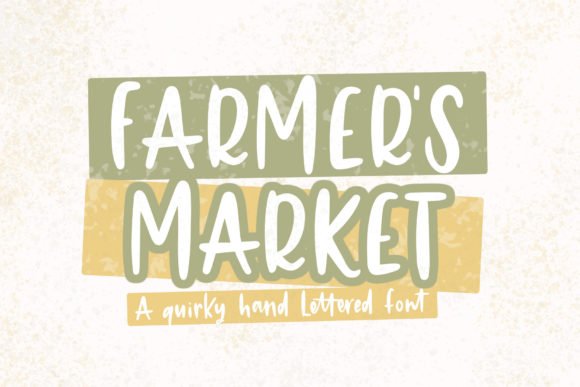
Getting Creative in the Fields of Typography
Have you ever strolled through a bustling farmer’s market, surrounded by vibrant colors and the sweet scent of fresh produce? For many creatives, these moments are the spark that ignites their imagination and inspires new projects. Whether you’re a graphic designer, artist, or simply someone who loves to craft, the sights and sounds of a farmer’s market can be a powerful catalyst for creativity.
One of the most charming elements of a farmer’s market is the handwritten signs and labels that adorn the stalls. These rustic, yet charming, typography styles are not only a feast for the eyes but also a valuable resource for designers. Enter the Farmer’s Market Font, a lovely handwritten typeface that captures the essence of these creative marketplaces. With its unique characters and friendly vibe, this font is the perfect addition to any design project.
Farmers Market Font Key Features
- Font Family: Farmers Market Font is a unique, hand-drawn font family designed to evoke the charm of a traditional farmers market.
- Unique Characteristics: Features a mix of rustic, vintage, and modern elements, making it suitable for designs ranging from rustic to elegant themes.
Farmer’s Market Font Review
At first glance, Farmer’s Market Font appears to be a charming, hand-drawn font perfect for creating a rustic and welcoming atmosphere. ✨ The varying line weights and subtle texture add a nice layer of depth and personality to the font, making it suitable for a wide range of applications, from branding to packaging.
- ✨ Highly expressive and unique, allowing for a distinct visual identity
- ✨ Wide range of styles and weights, offering flexibility in design
- ✨ Texture and imperfections give the font a hand-crafted feel
However, there are some limitations to consider. ⚠️ The font may not be ideal for body text, as the varying line weights can make it difficult to read at smaller sizes. Additionally, the font’s organic feel may not translate well to digital screens, where the texture and imperfections may appear pixelated or distorted.
Overall, Farmer’s Market Font is a great choice for designers looking to create a unique and memorable brand identity. While it may not be suitable for every project, it’s a great option for those seeking a rustic, handmade feel.
For the best results, use the Farmer’s Market Font in conjunction with earthy and natural design elements, such as leaves, flowers, and wooden textures. Common use cases include:
- Creating a rustic wedding invitation or save-the-date
- Designing a logo for a farm or agricultural business
- Creating a brochure or flyer for a local farmers market